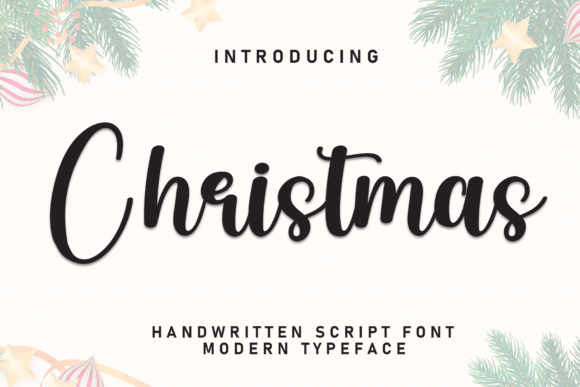
Get Ready to Spread Holiday Cheer with Christmas Font
As you sit at your desk, surrounded by twinkling lights and festive decorations, the creative juices start flowing. You’re inspired to create something special for the holiday season – a card, a poster, or perhaps a website banner. But, you need the perfect font to capture the essence of Christmas. That’s where Christmas Font comes in – a sweet and cursive handwritten font that’s sure to add a touch of magic to your design.
This beautiful font is not just a pretty face; it’s a valuable tool for designers looking to create a joyful and romantic atmosphere in their projects. With Christmas Font, you can add a personal touch to your designs, making them truly special and memorable. Whether you’re a seasoned pro or a beginner, this font is sure to become a holiday favorite.
Key Features of Christmas Font
- Unique Characteristics: Whimsical, festive design with intricate details and ornaments
Designer Review: Christmas Font
Overall, I think Christmas Font is a decent font that gets the job done, but it’s not without its limitations. Let’s dive in and see what works well and what doesn’t.
What Works Well: ✨
- Unique and festive design: The font has a distinctively holiday feel to it, which makes it perfect for Christmas-themed designs and marketing materials.
- Good for headings and titles: The font is bold and eye-catching, making it ideal for headings and titles where you want to grab the reader’s attention.
- Limited character set: The font has a limited character set, which may not be suitable for long blocks of text.
- May not be suitable for body text: While the font is great for headings and titles, it may not be the best choice for body text due to its limited legibility.
- No bold or italic variants: The font doesn’t have bold or italic variants, which may limit its usability in certain situations.
Overall, I think Christmas Font is a solid choice for holiday-themed designs, but it’s not the most versatile font out there. If you’re looking for a font that’s perfect for Christmas marketing materials or social media graphics, this one might be a good fit. However, if you need a font for a more complex project or a long block of text, you may want to consider other options.
The Christmas Font is commonly used in various design projects, including:
– Holiday greeting cards and invitations
– Christmas party flyers and posters
– Social media graphics and advertisements
– Holiday-themed web pages and email templates
To get the most out of the Christmas Font, follow these tips:
– Use it in conjunction with other festive design elements, such as holly leaves and snowflakes.
– Experiment with different font sizes and colors to create a unique look.
– Use the font to add a touch of whimsy and fun to your designs.
Alternative Christmas Fonts for Designers